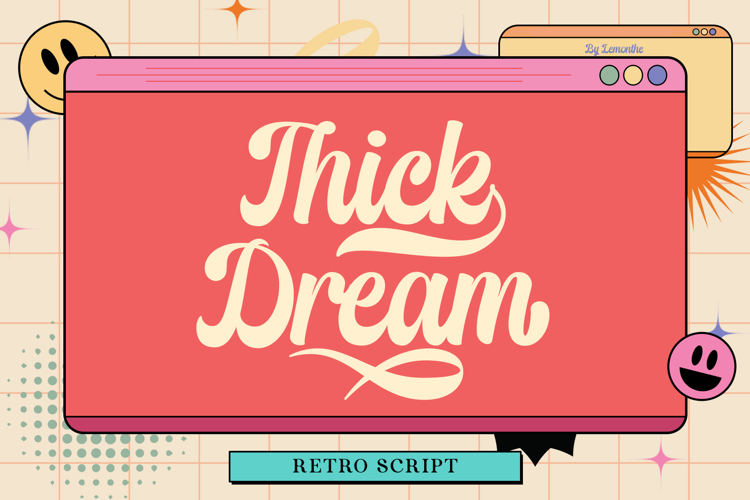
Thick Dream is a bold retro script font featuring smooth letter flow, soft proportions, and stylish swashes. It is designed to deliver a strong visual presence while maintaining a relaxed and friendly feel, making it suitable for various design needs such as logos, posters, packaging, branding, and headlines.